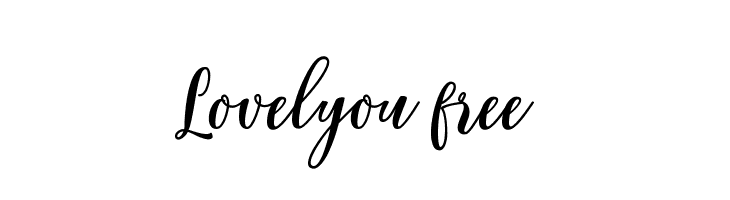
An elegant script font with flowing, cursive style and intricate loops.
A playful and elegant cursive script font with flowing, graceful characters.
An elegant, flowing script font with a sophisticated, handwritten style.
A bold, expressive script font with a hand-drawn, artistic style.
A bold and expressive script font with dramatic flourishes.
A graceful, handwritten script font with elegant curves and swashes.
A graceful and elegant script font with flowing, cursive letters.
An elegant script font with flowing cursive letters and intricate flourishes.
An elegant, cursive font with flowing, handwritten style.